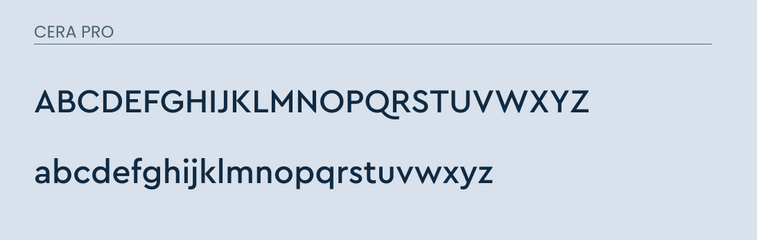
1 Google Font Similar to Cera Pro
Cera Pro is a sans-serif font that is popular in web design. It features a large x-height and compact capitals that give it a distinct look. The font supports up to 150 languages which include Latin, Cyrillic, and Greek.
This font was very difficult in finding GOOD alternatives too. It has it's own unique style that makes it so great. The uppercase "Q" in Cera Pro is really unique and hard to match.
I believe that I have found 1 good font that should get the job done that are similar looking enough.
What Google Fonts are Similar to Cera Pro?
The most similar looking font to Cera Pro on Google Fonts is:
- PT Sans
Both of these fonts look very similar in lowercase. I would argue that it is around a 90% match.
The uppercase is where things start to differ some. Like I mentioned before, the hardest part to match is the uppercase "Q" because of it's long tail.
PT Sans makes an attempt at trying to match, but doesn't quite hit the mark. The only other slight difference is in the "G". Otherwise it does a pretty good job in matching the uppercase as well.